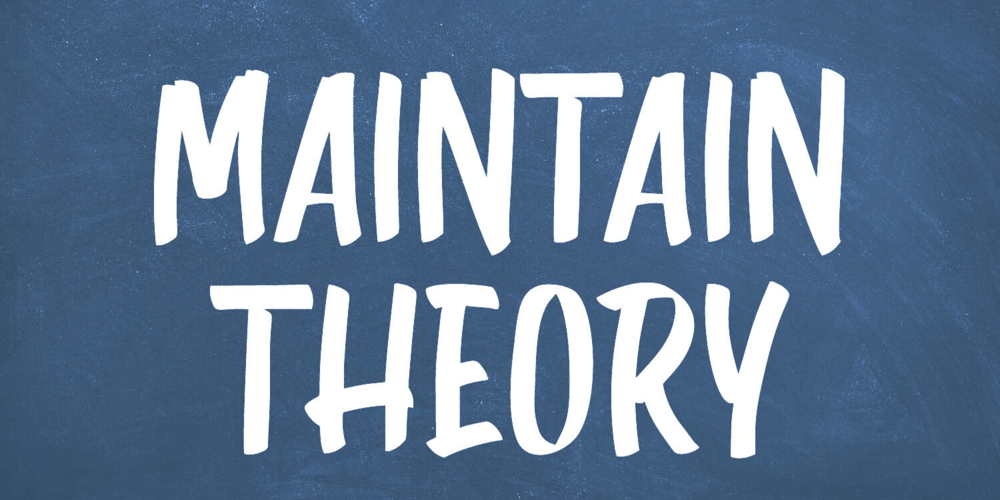
Maintain Theory
Maintain Theory font
Maintain Theory Font Family was designed by Irpan Maulana and published by Create Big Supply. Maintain Theory contains 1 styles and family package options. With its unique combination of uppercase and lowercase letterforms, Maintain Theory offers versatility and creativity for your design projects. Its brush-style strokes exude energy and movement, adding a touch of handcrafted authenticity to your work.The font includes a wide range of characters, including numbers and punctuation marks, making it suitable for various design applications. It also supports multiple languages, ensuring that your message can be communicated effectively to a global audience.Maintain Theory is equipped with PUA Encoding, which allows easy access to special characters, ligatures, and swashes. This feature enhances the font’s versatility, allowing you to create custom and eye-catching typography.Embrace the artistic power of Maintain Theory and elevate your designs to new heights. Whether you’re designing for branding, advertising, packaging, or any other creative project, this expressive display brush font will add a compelling visual impact that resonates with your audience.